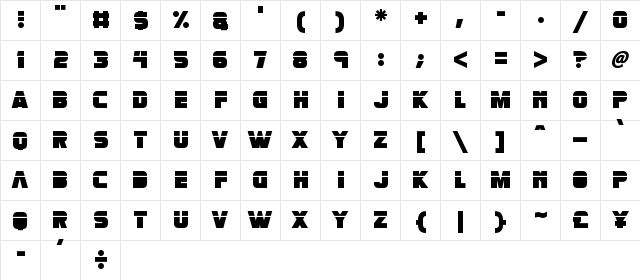
Retronoid Regular
Design Context for Retronoid Typeface
Retronoid has the warm character of retro typography — evoking diners, record sleeves, and the golden age of print advertising.
Font Pairing: Combine Retronoid with a simple slab or neutral sans — period-accurate companions reinforce the vintage feel without competing for attention.
Pro Tip: Lean into Retronoid's period character by pairing it with aged paper textures, muted colour palettes, and vintage illustration styles.